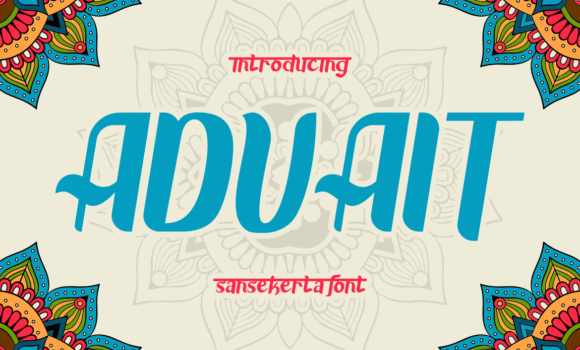
Advait Font – Free Download Introduction to Advait Font Introducing Advait – Sansekerta Font, a stunningly crafted display typeface inspired by the classical and ethnic beauty of Indian and Javanese culture. 📸 Preview Gallery 6 images 📌 Product Name Advait